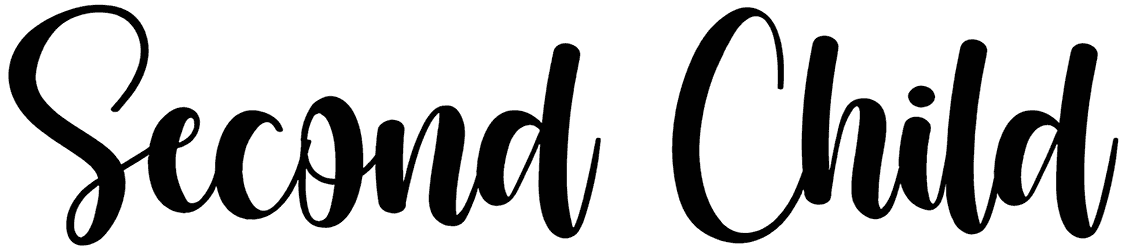
Second Child Font
This font right here may be called Second Child, but that doesn’t mean you’re gonna love it any less than the first one! Meaning that even if you have other calligraphy fonts in your toolkit already, this one still manages to earn a special place in your heart.
Let’s just hope you soon get asked to design chocolate branding content or that Christmas or some other holiday is right around the corner. That’d be perfect for trying out our Second Child…
Second Child is an exquisite handwritten font, masterfully designed to become a true favorite. It maintains its classy calligraphic influences while feeling contemporary and fresh. Fall in love with it and bring your projects to the highest levels!